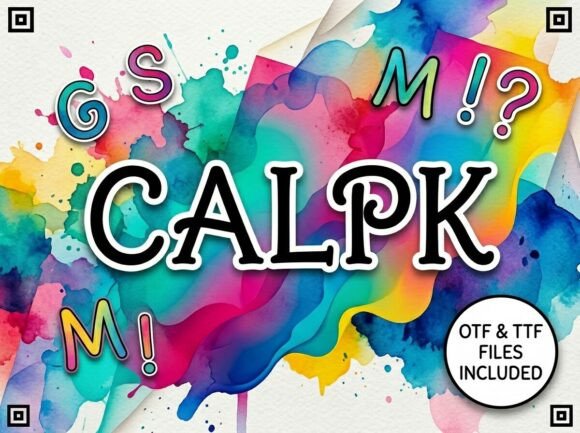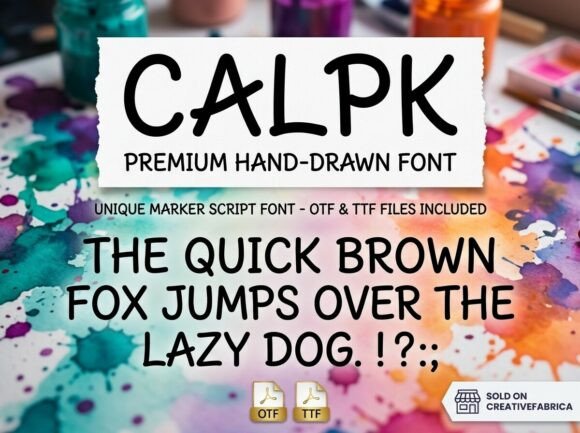
The Calpk Font: A Stunning Decorative Display Font for Creative Minds
Have you ever been in the middle of a design project, pouring your heart and soul into it, only to hit a roadblock when it comes to choosing the perfect font? I certainly have. It was a similar moment that led me to discover the Calpk Font, a game-changing decorative display font that has since become a staple in my design toolkit.
As a designer, I’m always on the lookout for fonts that can help my projects stand out from the crowd. And let me tell you, Calpk Font delivers. With its unique artistic elements and strong visual personality, this font is perfect for creators who want to break away from the ordinary.
What Makes Calpk Font Special?
Calpk Font is a versatile decorative display font designed to be the center of attention. Its stunning design makes it perfect for bold headlines, artistic logos, and creative packaging, while maintaining a professional and polished finish.
• ✨ Unique and artistic design that turns heads.
• ✅ Professional and polished finish.
• ✅ Versatile and perfect for various design projects.
⚠️ One thing to note is that Calpk Font is an ALL-CAPS (Uppercase Only) display typeface. This means it does not include lowercase letters. While this may seem limiting, it’s actually a deliberate design choice that makes each letter a work of art, perfect for high-impact headlines, logos, and decorative initials.
The Calpk Font was designed with the intention of creating a unique and artistic display font that would turn heads. The designer wanted to create a font that would be perfect for high-impact headlines, logos, and decorative initials, while maintaining a professional and polished finish.
Q: Is Calpk Font suitable for body text?
A: No, Calpk Font is a decorative display font designed for headlines, logos, and decorative initials. It’s not suitable for body text.